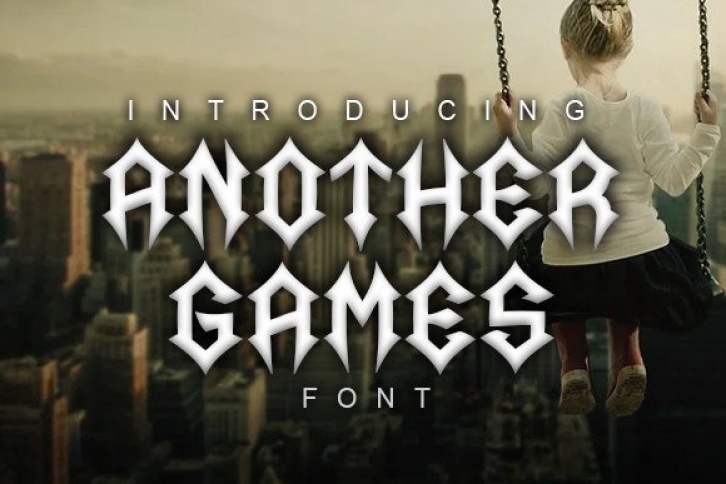
Another Games is a cool and unique Gothic blackletter font. Use it for product packaging, branding, or other projects that need bold and daring typography